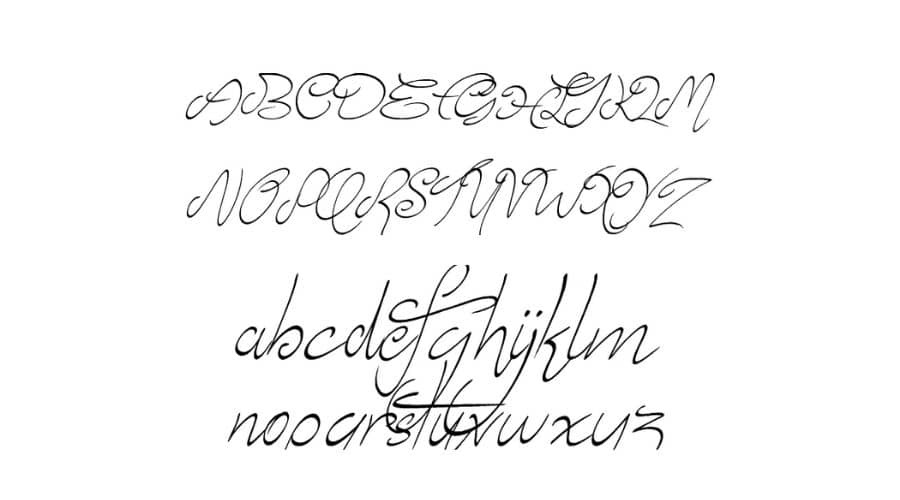
Elyse Font Free is a beautiful Script and Handwritten font. Jonathan S Harris created and published Elyse. Elyse is only available for personal use. On February 5, 2018, the Font was made public. This is a popular choice among web designers, graphic artists, and computer users in general. The Elyse is compatible with the Cricut cutting machine and will be a great way to spice up your Cricut creations. It’s available in two weights and four different styles. It has a lot of distinct alternates that you may use in Adobe Illustrator or Photoshop by going to the glyphs panel. The lovely typeface is simple to convert to a web font. OTF and TTF are the two formats in which the typeface is offered. This Font supports the following languages: Basque, Catalan, Cornish, Croatian, Czech, Danish, Dutch, Embu, English, Esperanto, Estonian, Faroese, Filipino, Finnish, French, Galician, German, Hungarian, Icelandic, Indonesian, Irish, Italian, Malay, Maltese, Manx, Maori, Meru, Morisyen, North Ndebele, North Ndebele Norwegian Bokmal, Norwegian Nynorsk, Nyankole, Oromo, Polish, Portuguese, Romansh, Serbian, Slovak, Slovenian, Spanish, Swedish, and Swiss German.
This typeface will add a unique hand-drawn style to your next project that your clients will adore. Elyse is the ideal typeface for all of your whimsical designs. You may use Elyse to make unique designs, covers, and logos for your shop or store. Elyse is also ideal for branding projects, homeware designs, product packaging, and as a classy text overlay on any background image.